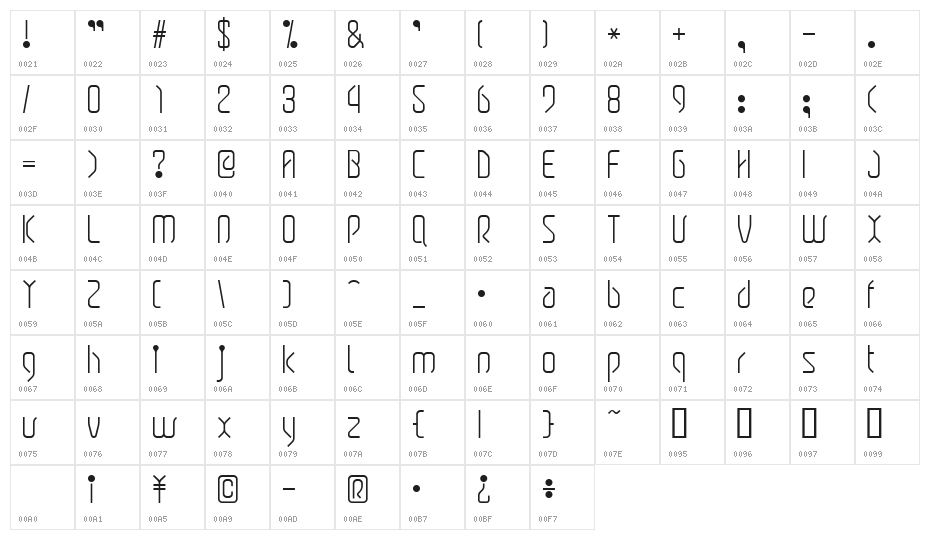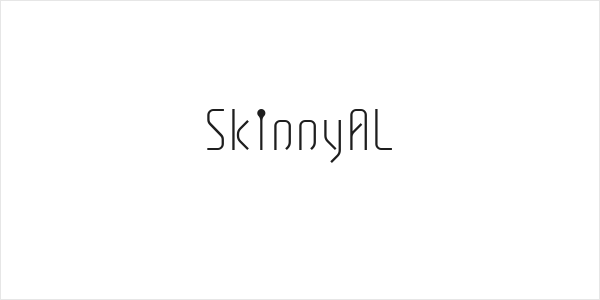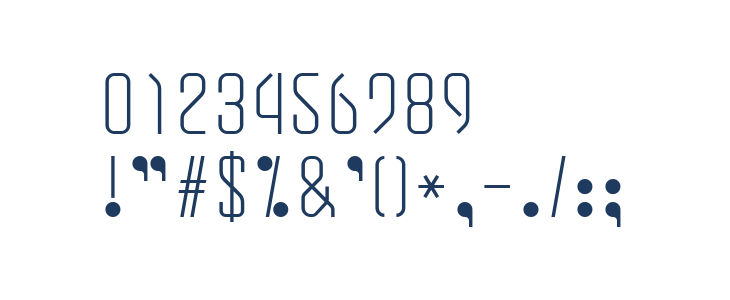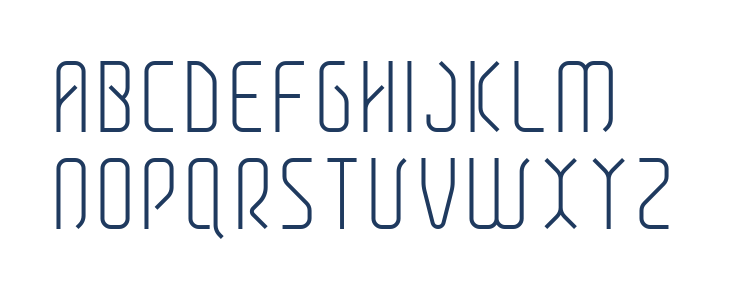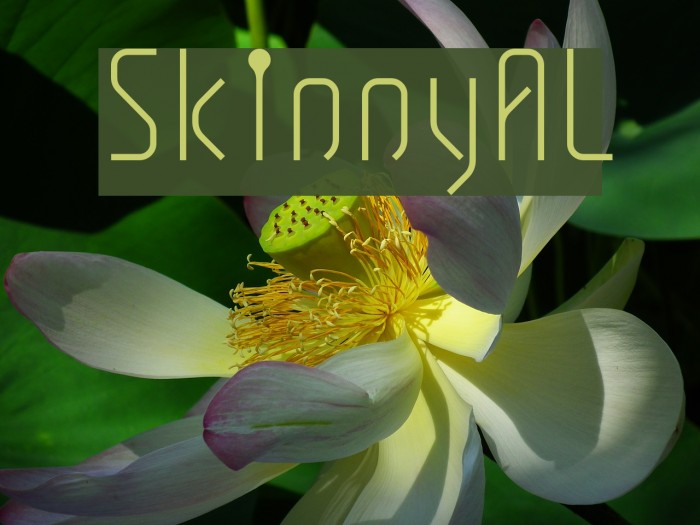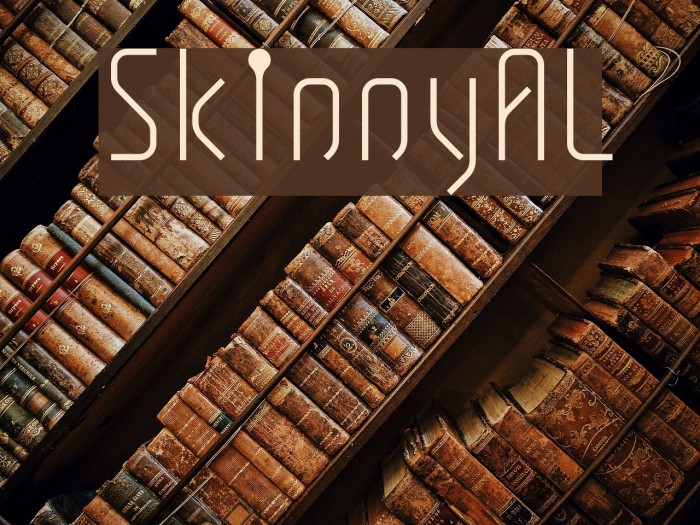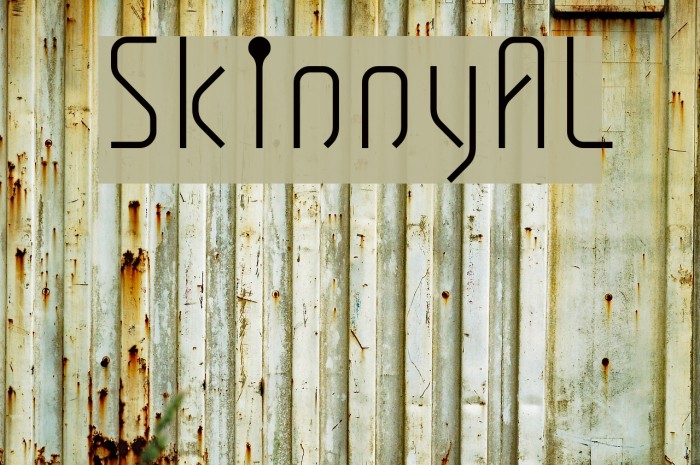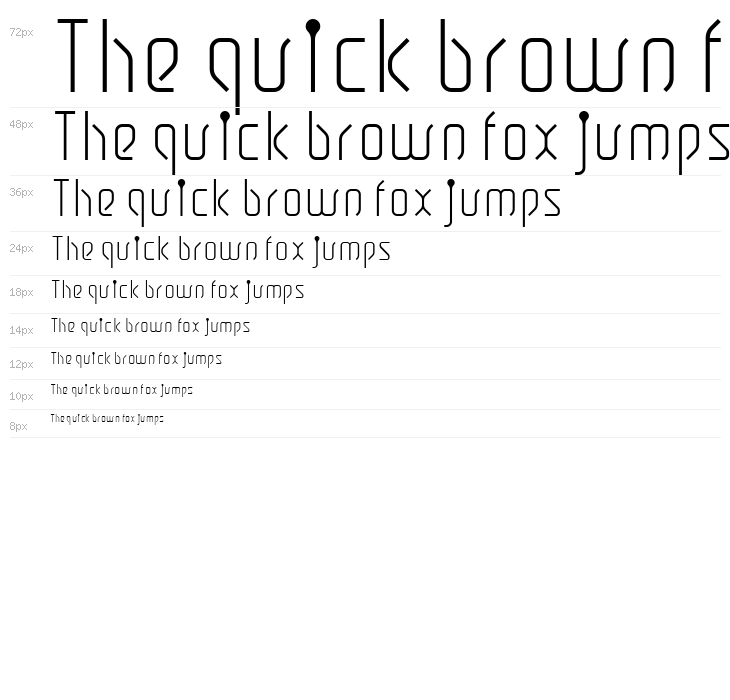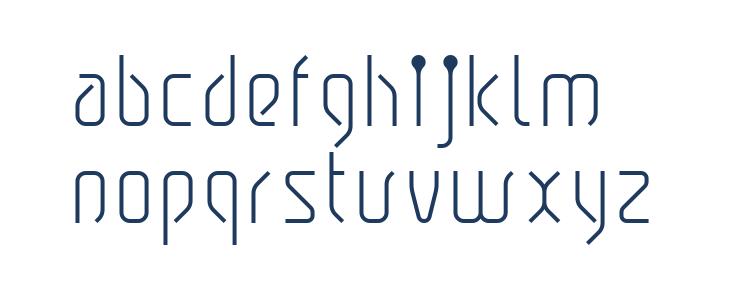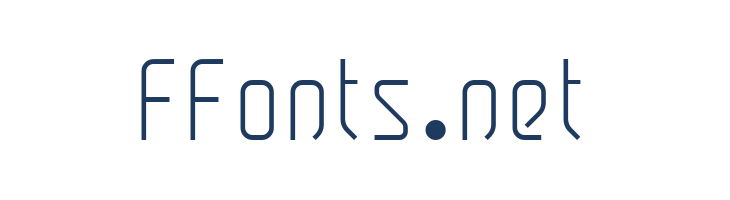
SkinnyAL Font
SkinnyAL Description
This font features a modern, geometric design with a distinctively thin and elongated appearance. The characters are constructed with clean, straight lines and subtle curves, creating a sleek and futuristic look. The uppercase letters have a uniform height, while the lowercase letters maintain a consistent style with slight variations in height and width. The numerals are designed to match the overall aesthetic, with a minimalist approach that emphasizes clarity and readability. Special characters are included, maintaining the same thin and precise line work. This font's unique style makes it suitable for contemporary design projects, where a modern and sophisticated touch is desired.
| Use Case | Headlines, Logos, Digital interfaces |
| Proposed Projects | Ideal for tech branding, modern posters, futuristic designs, and digital interfaces. |